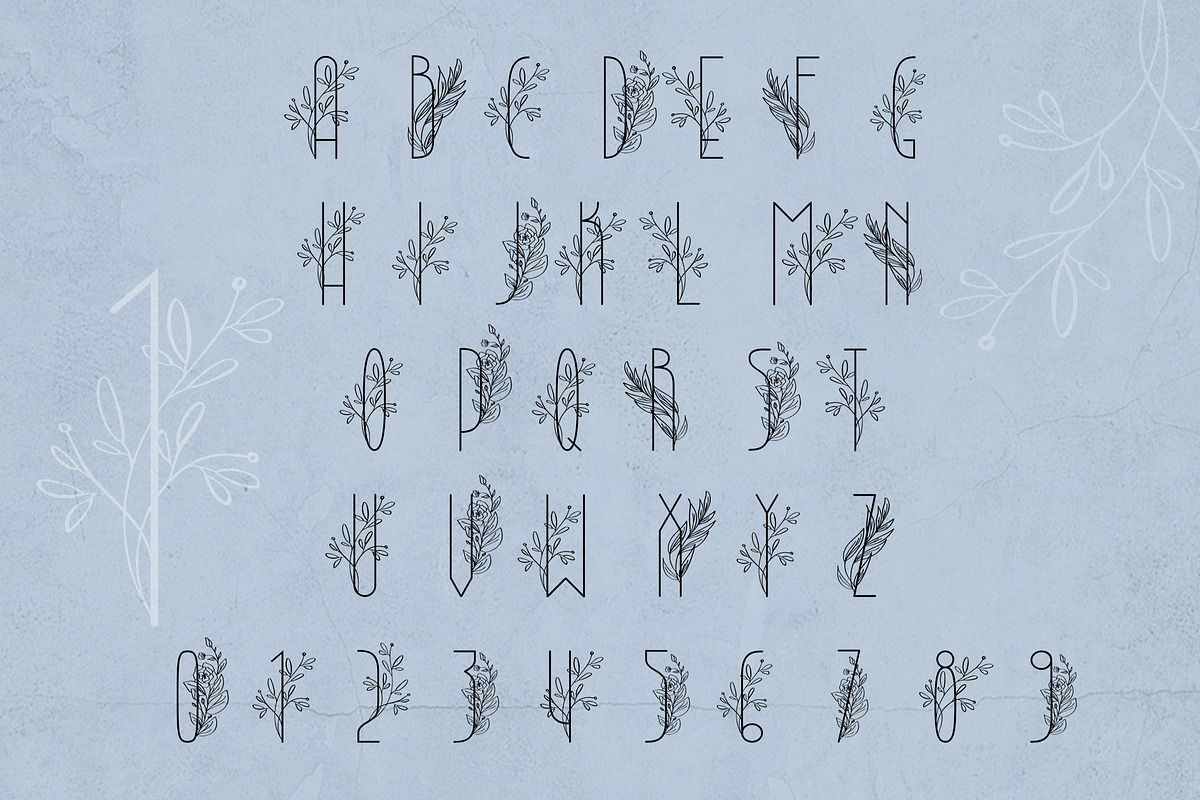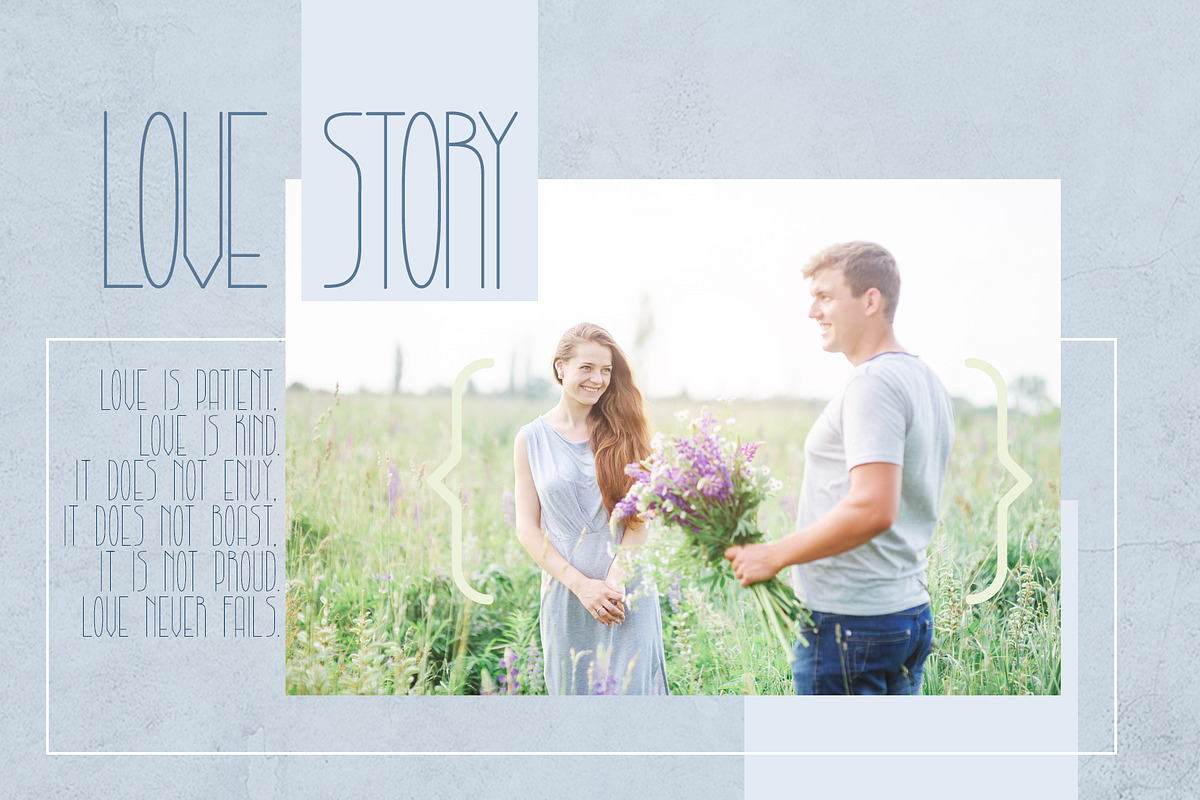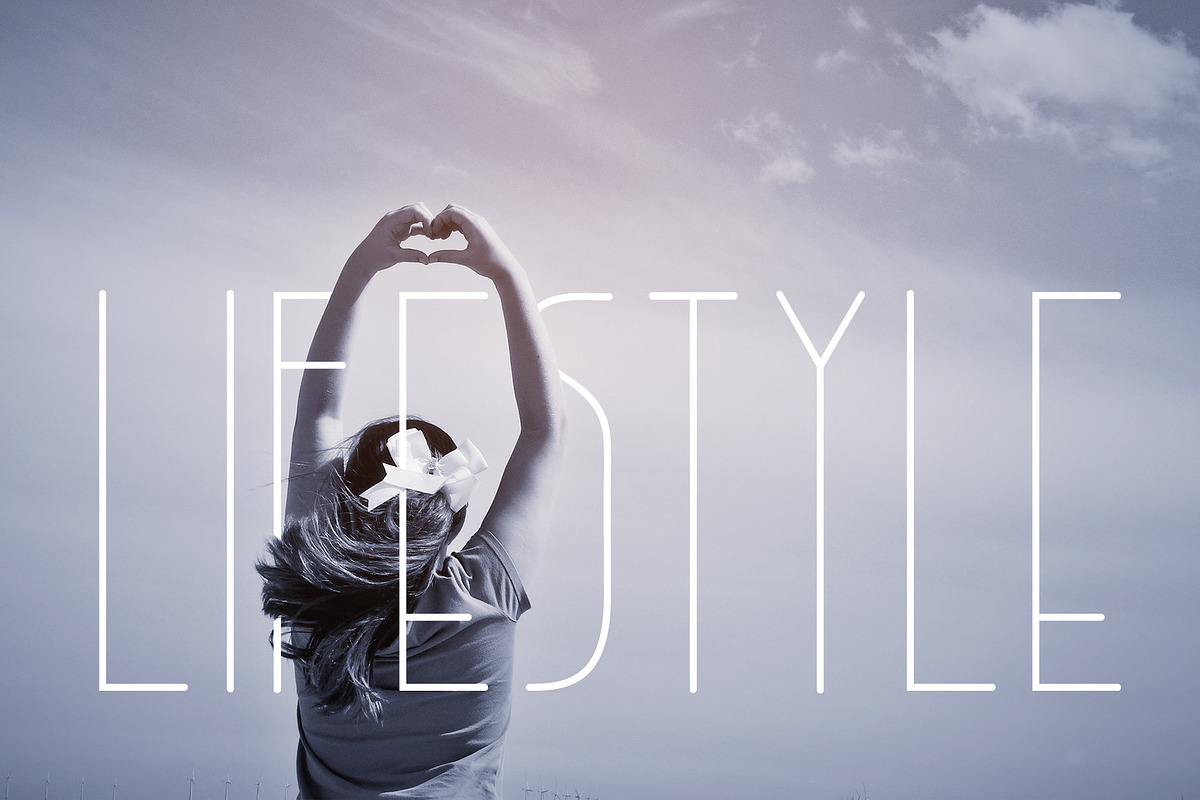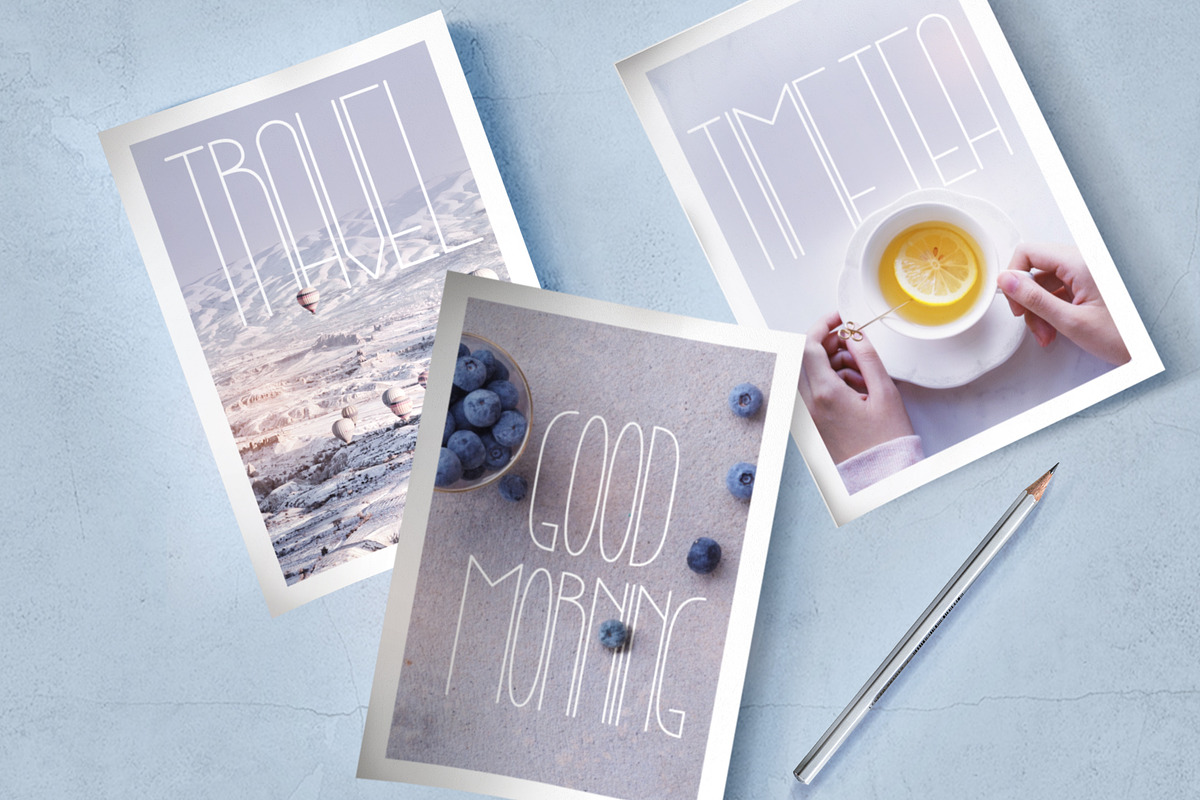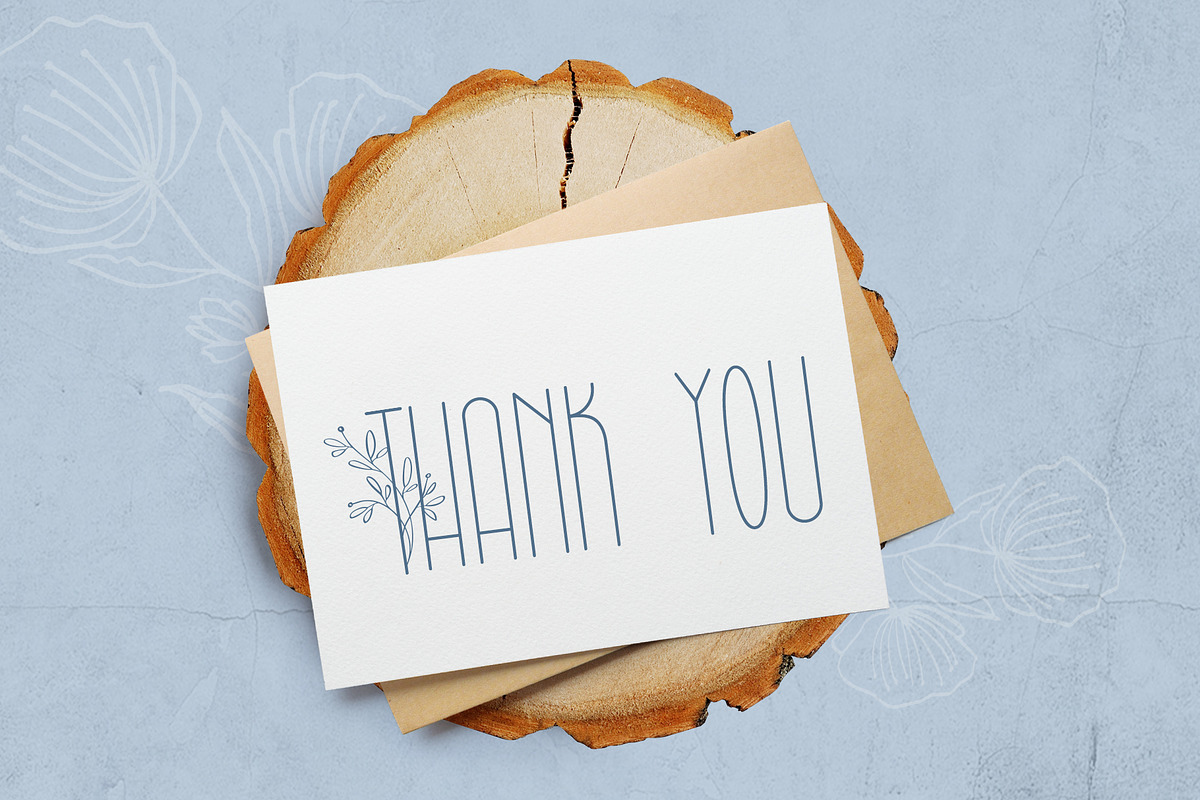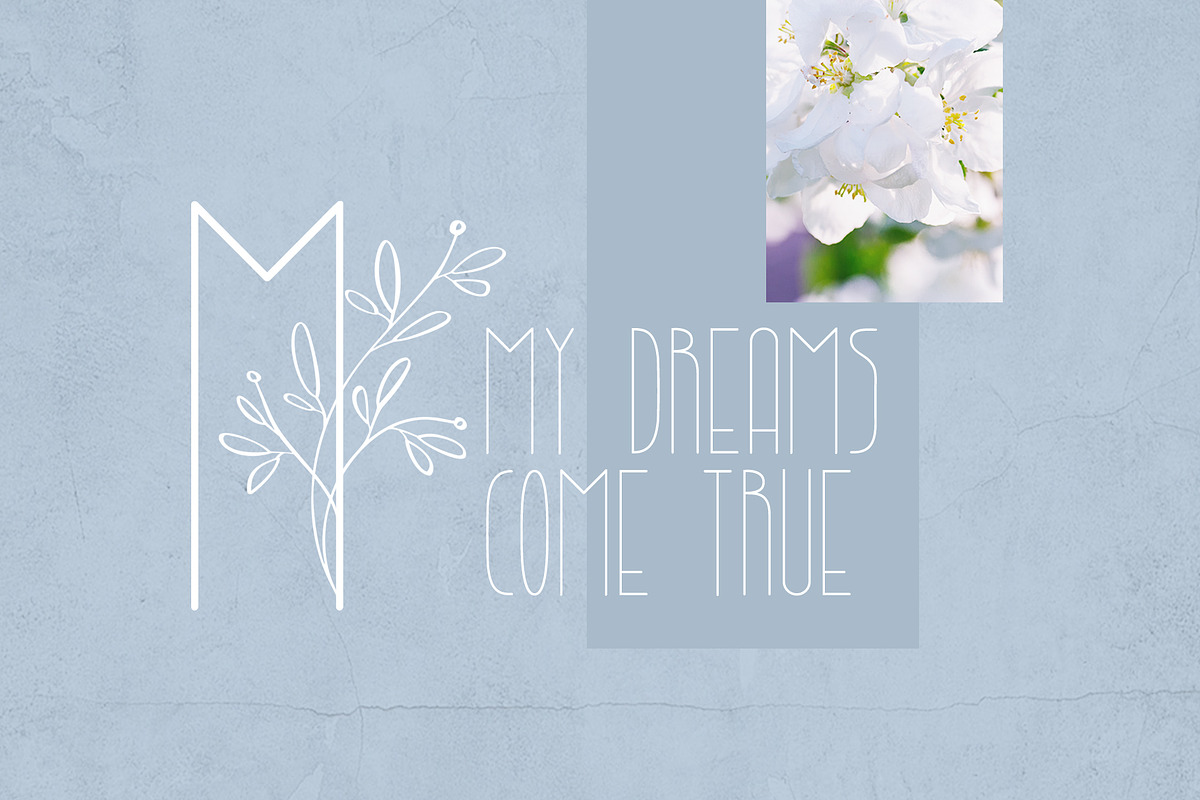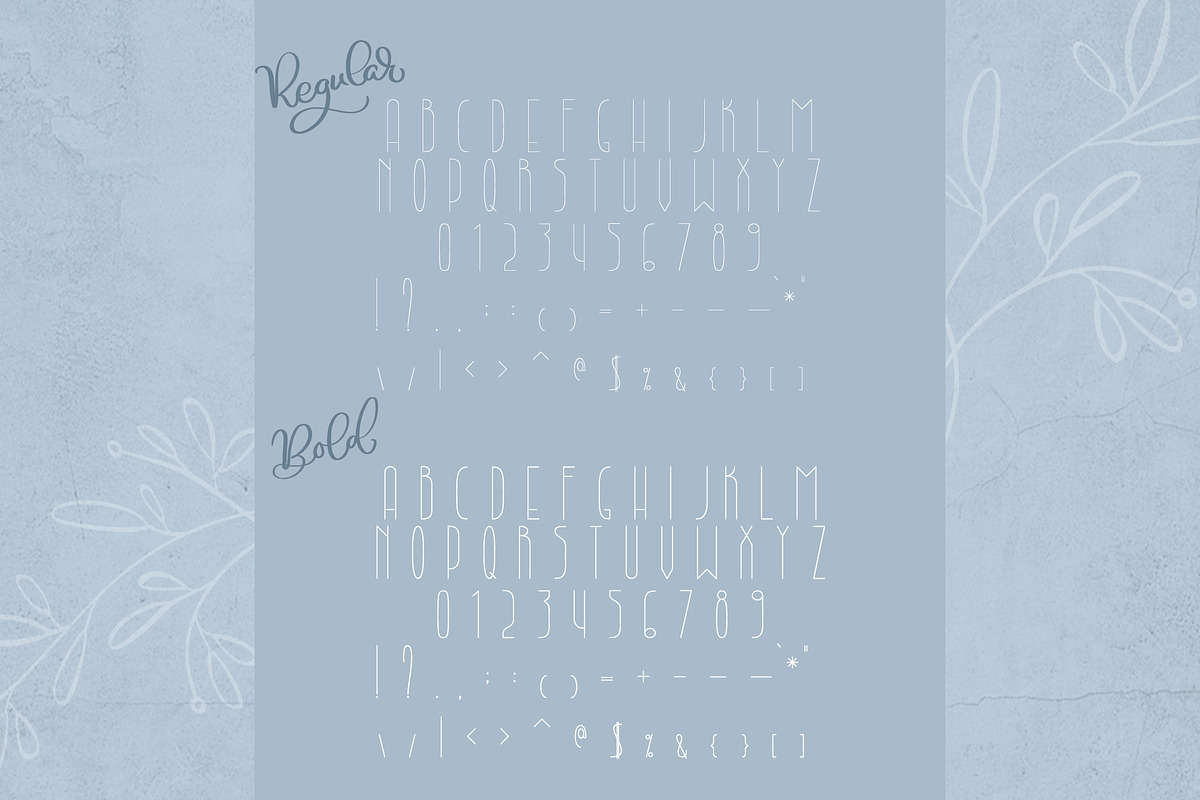
Lightbon Modern Font
A striking modern display font in two styles - Regular and Bold. Lightbon is the font that to help yourself realize your dreams and creations.
Lightbon is Regular and Bold font which is well suited for the design of wedding books or photo overlays, holiday events, antique subjects, other. In addition to the font there is a vector file with special capital letters - initial letters with design element floral.
Titles for wedding albums, greeting cards (Christmas, Birthday, other holidays), logos, short phrases, gift shops, presentation, Pinterest or Instagram.